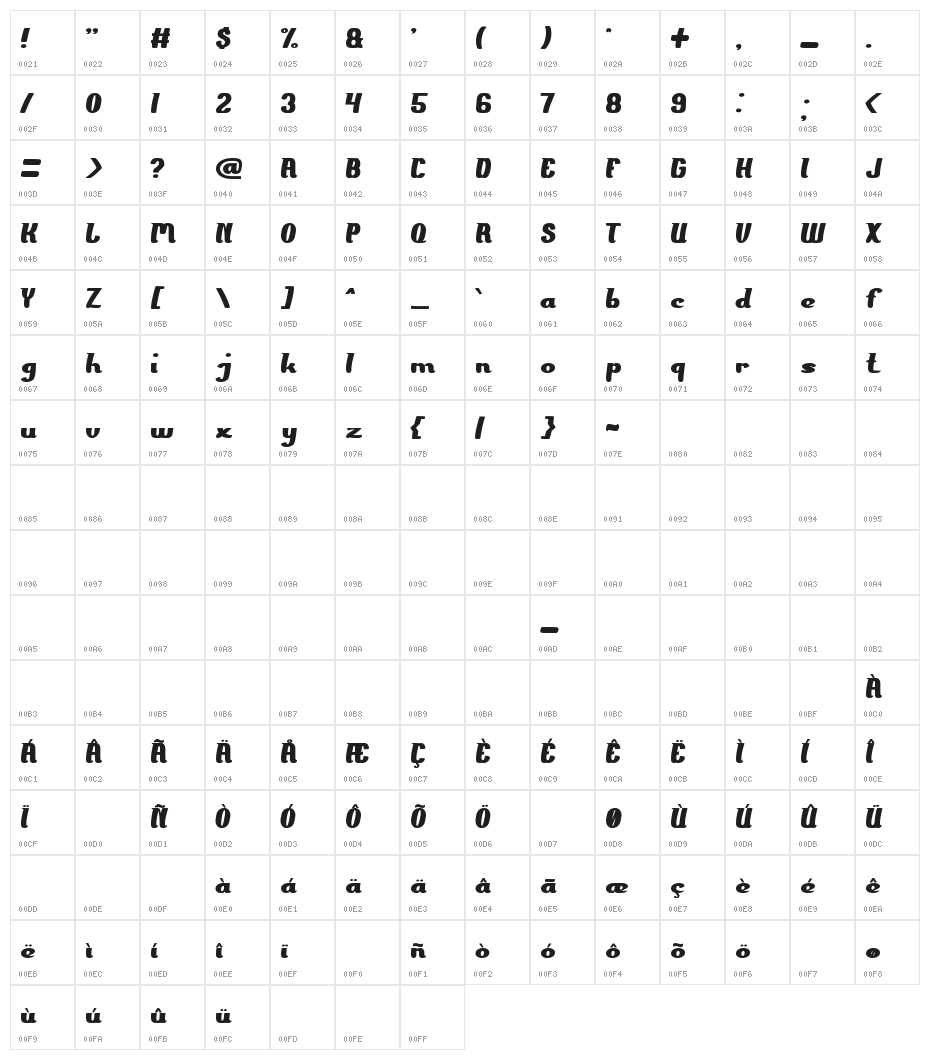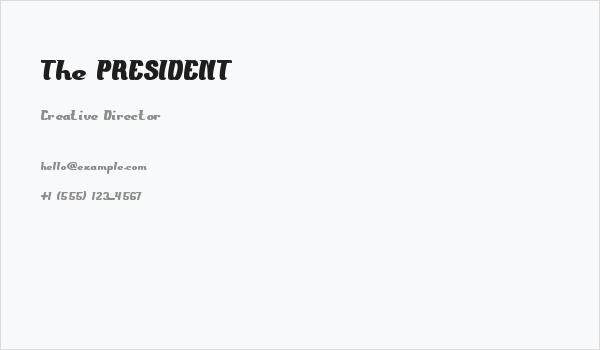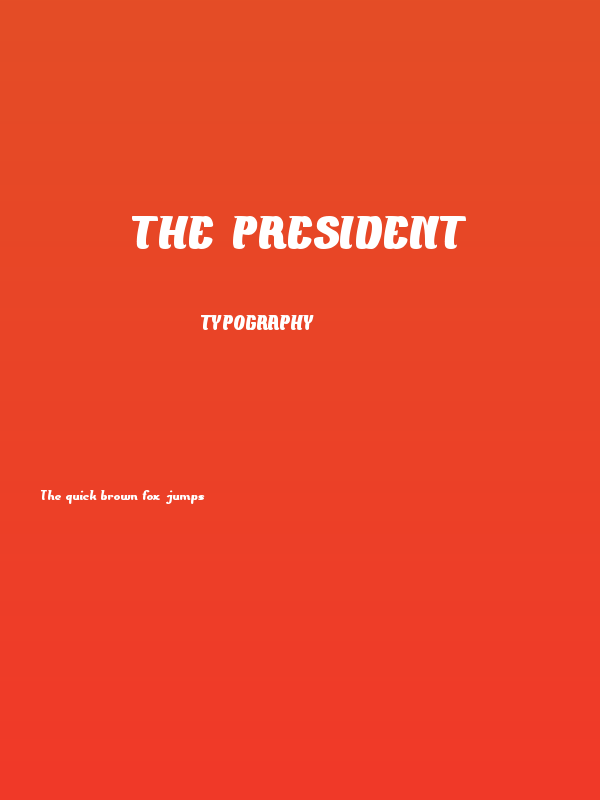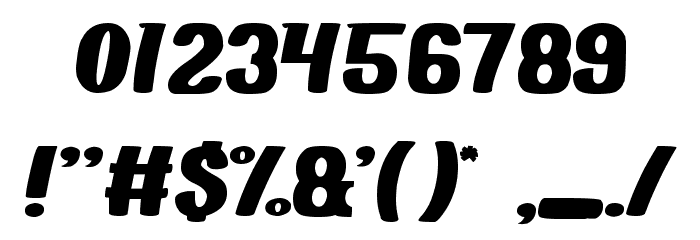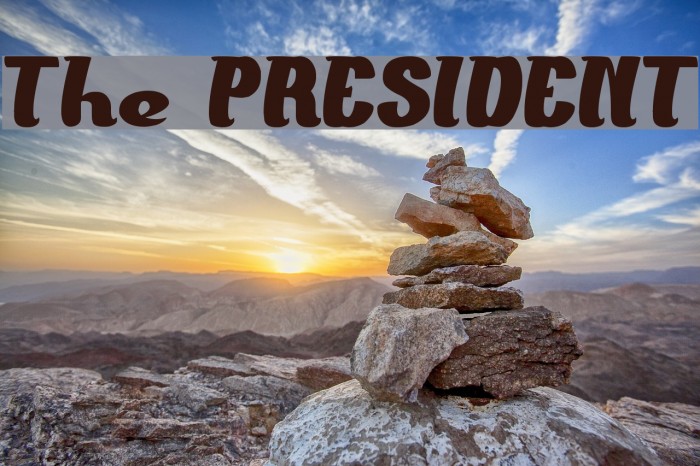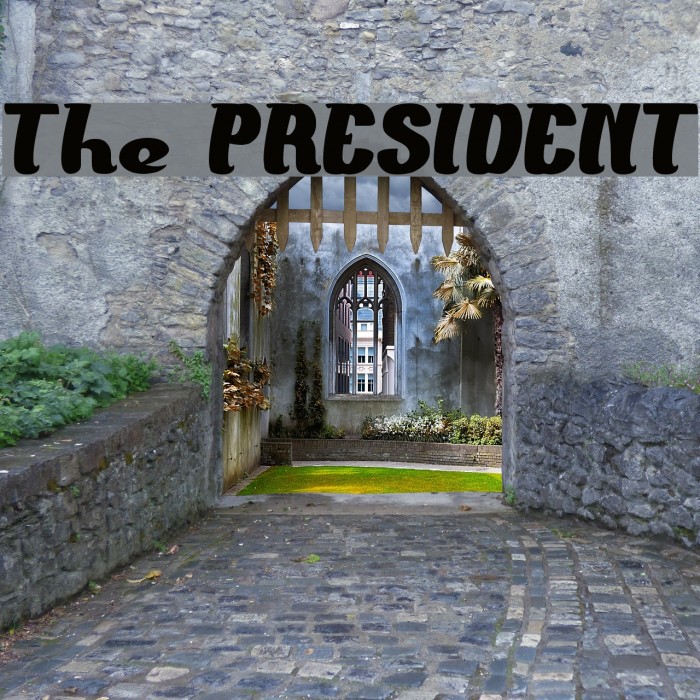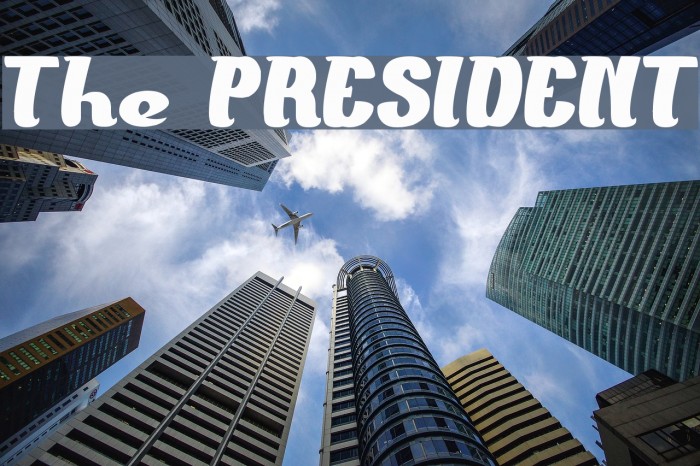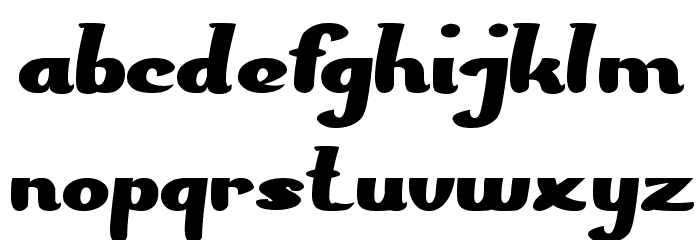
The PRESIDENT Font
The PRESIDENT Description
This font features bold, rounded characters with a playful and dynamic appearance. The uppercase letters are robust and slightly condensed, giving a strong presence. The lowercase letters maintain a consistent style with a slight slant, adding a touch of movement and fluidity. The numbers are equally bold, ensuring readability and uniformity across different uses. Special characters are designed to match the overall aesthetic, with a focus on maintaining the playful yet strong character of the font. The strokes are thick, providing a high contrast that enhances visibility and impact.
| Overall Style | Playful, Dynamic |
| Proposed Projects | Ideal for branding, posters, headlines, and any project requiring a bold and playful typeface. |